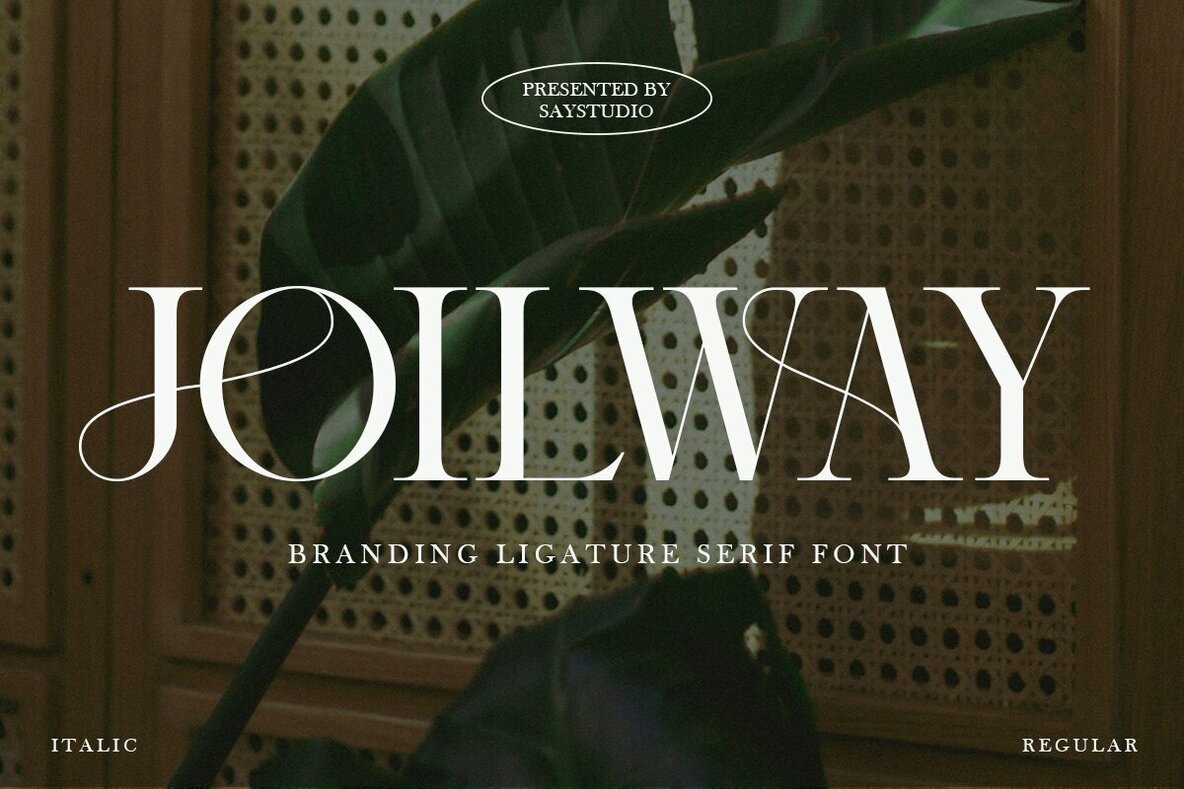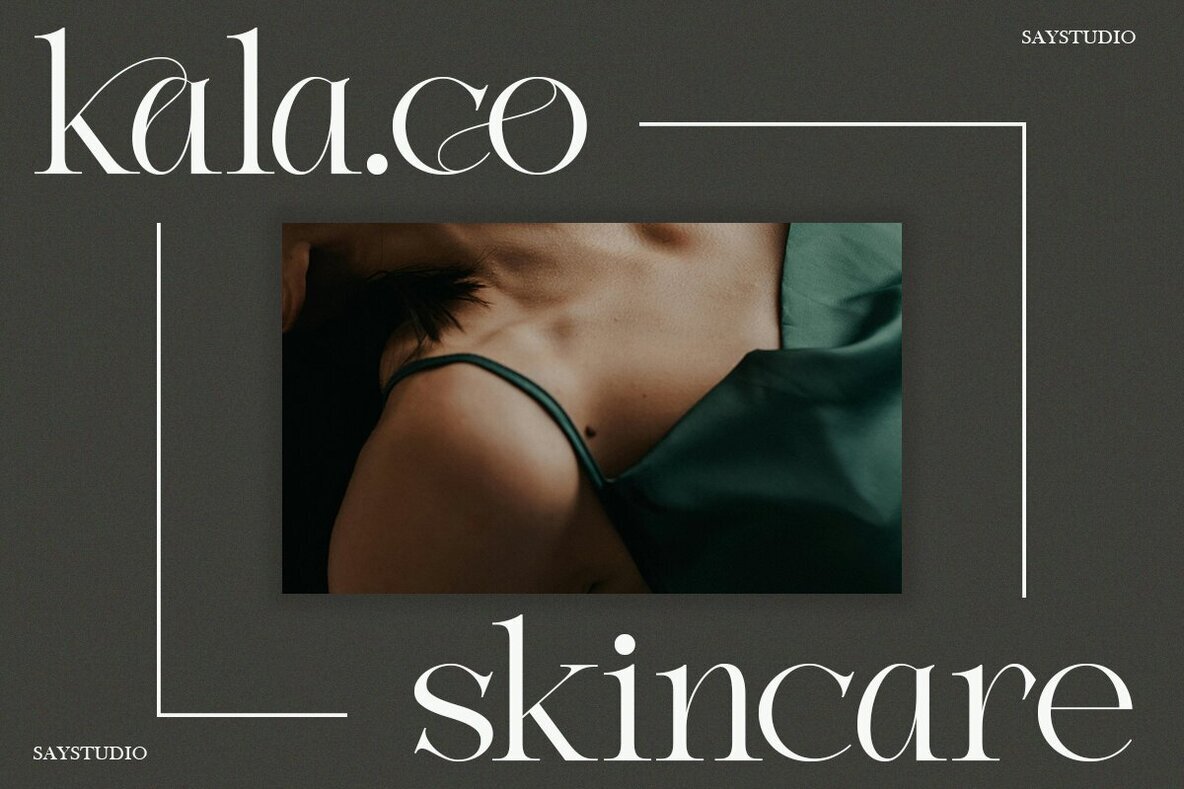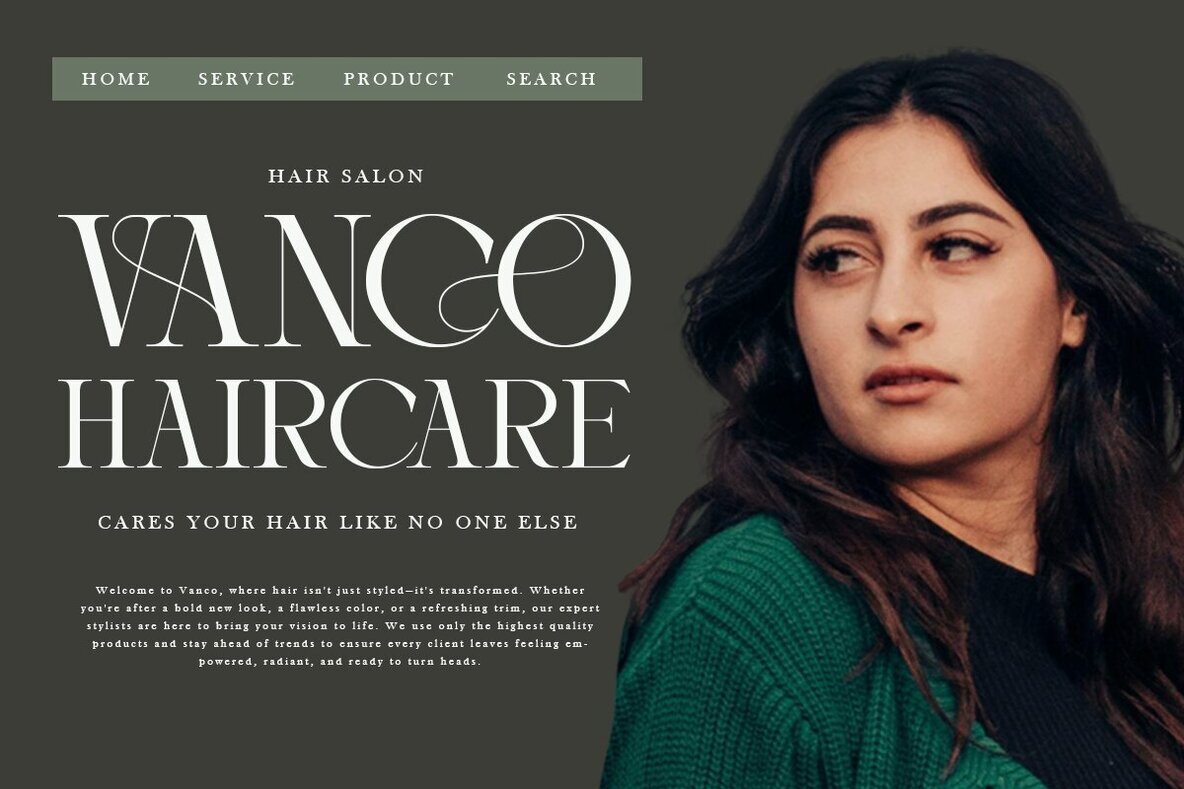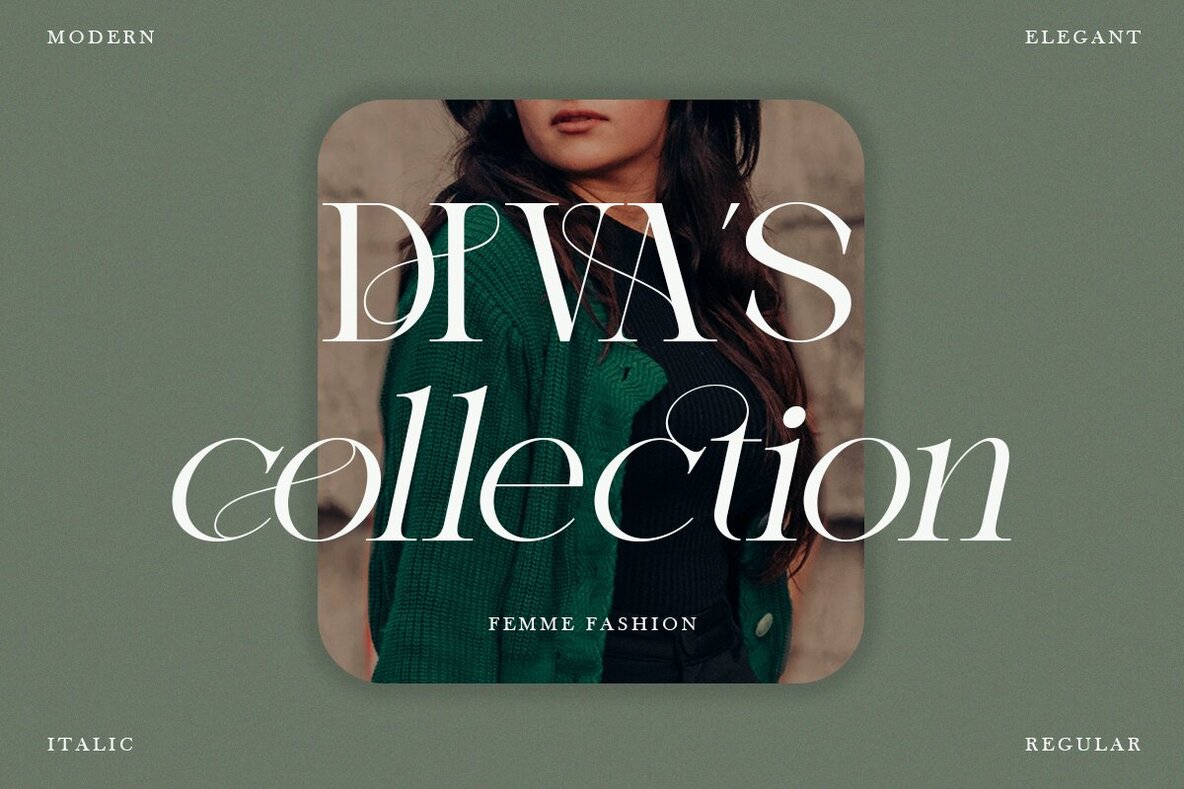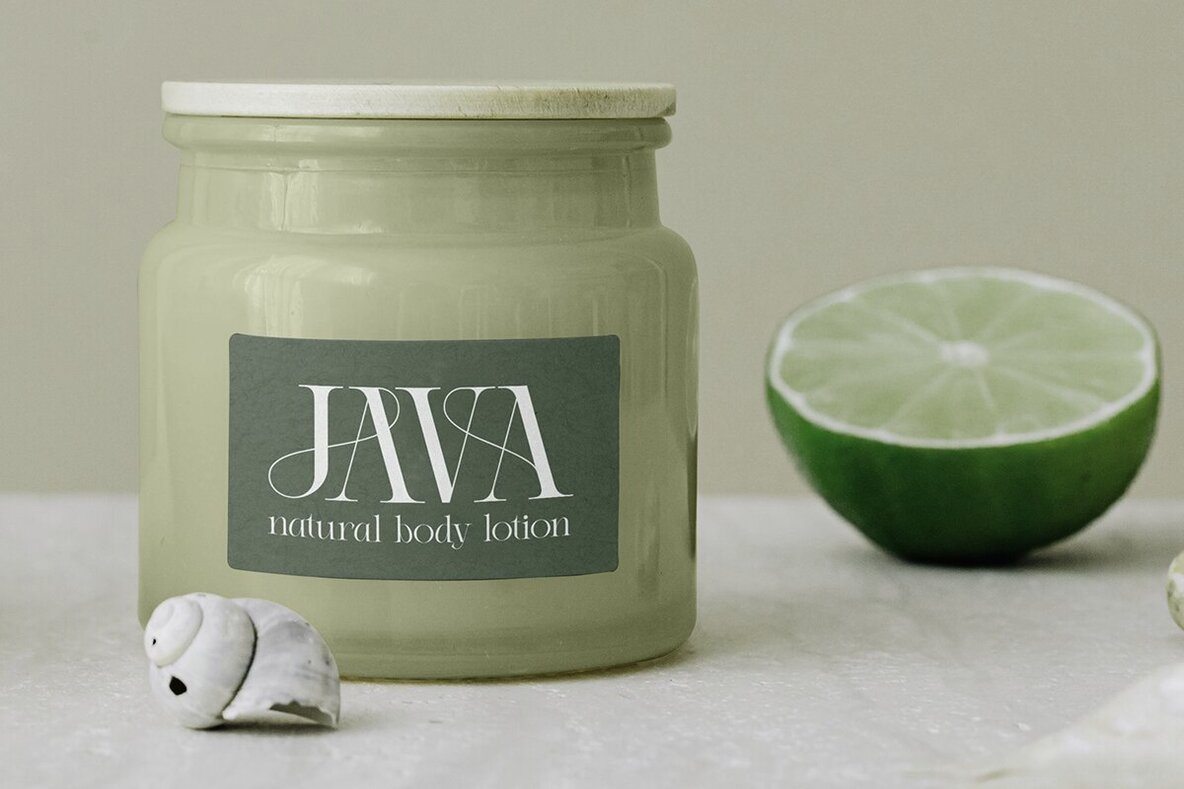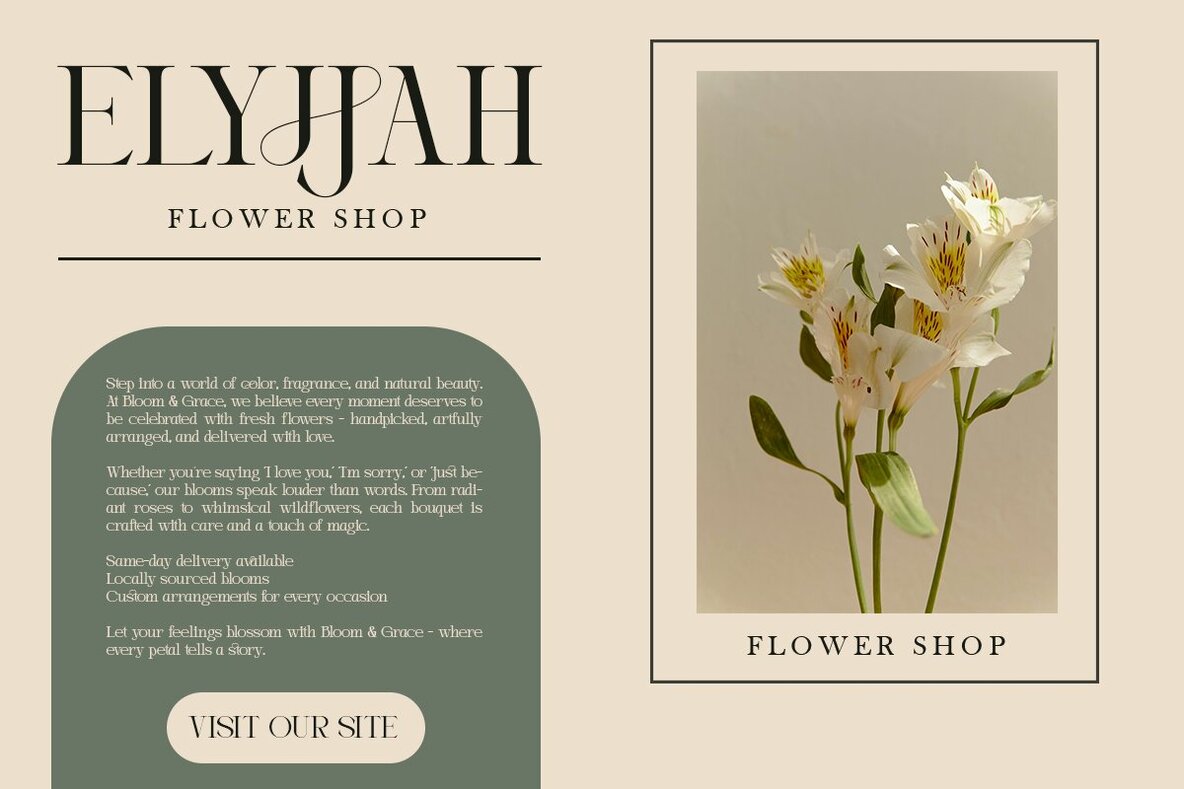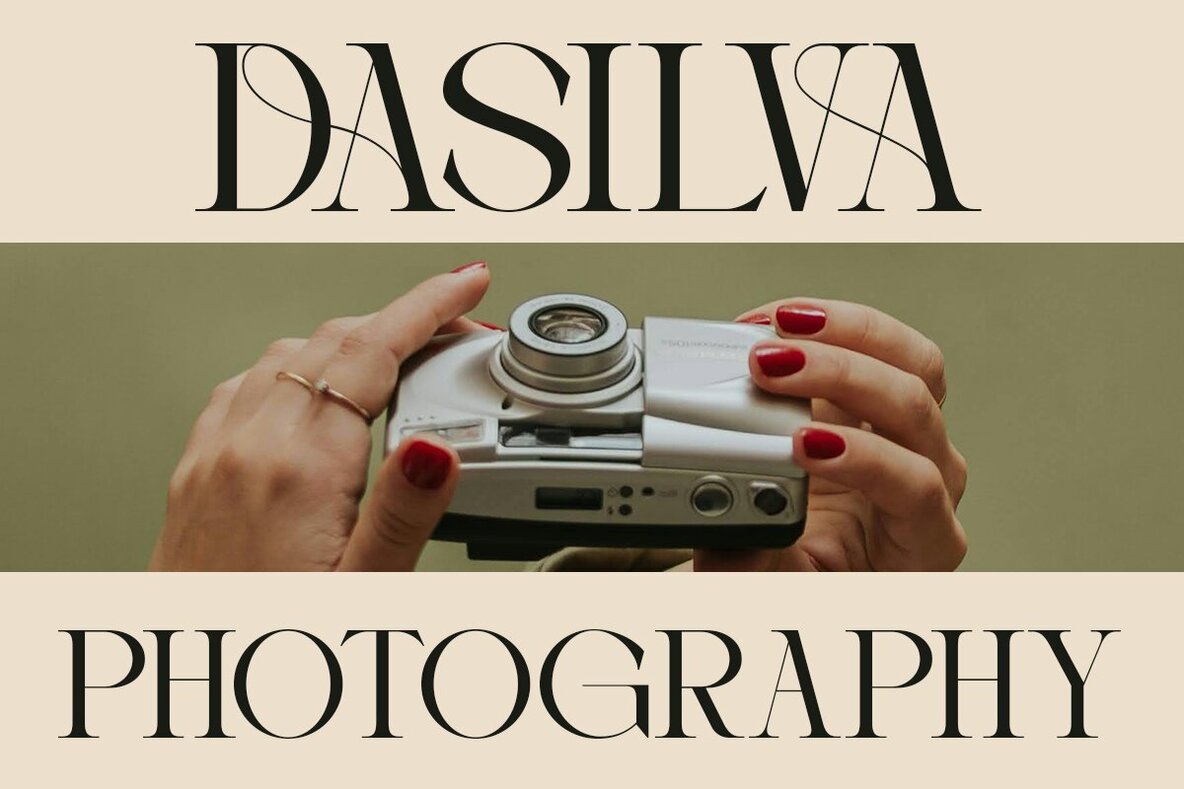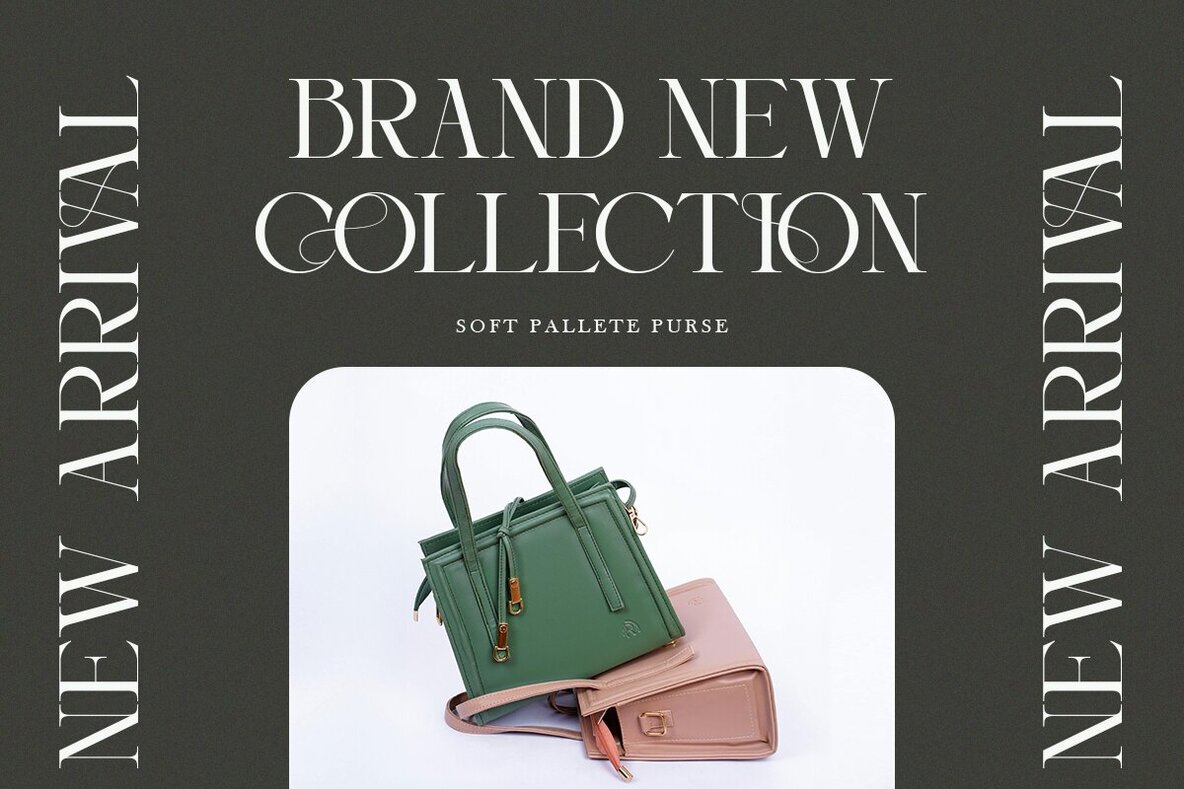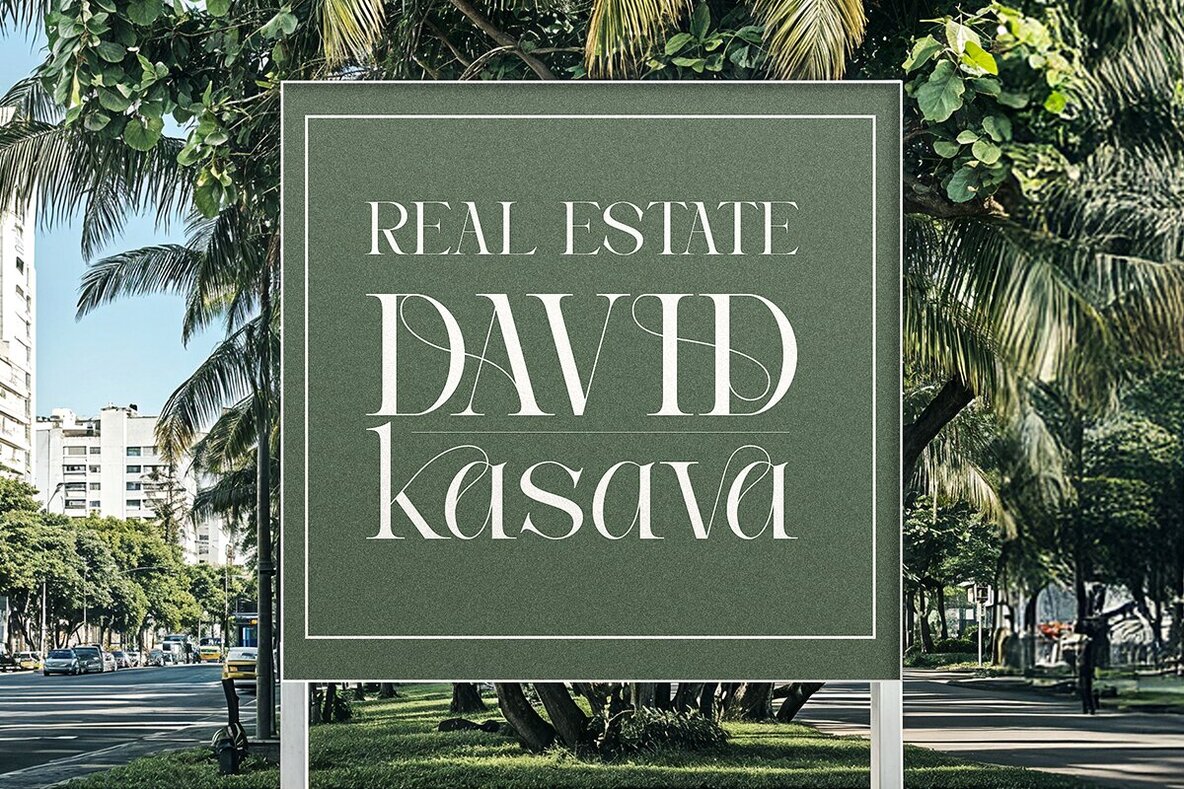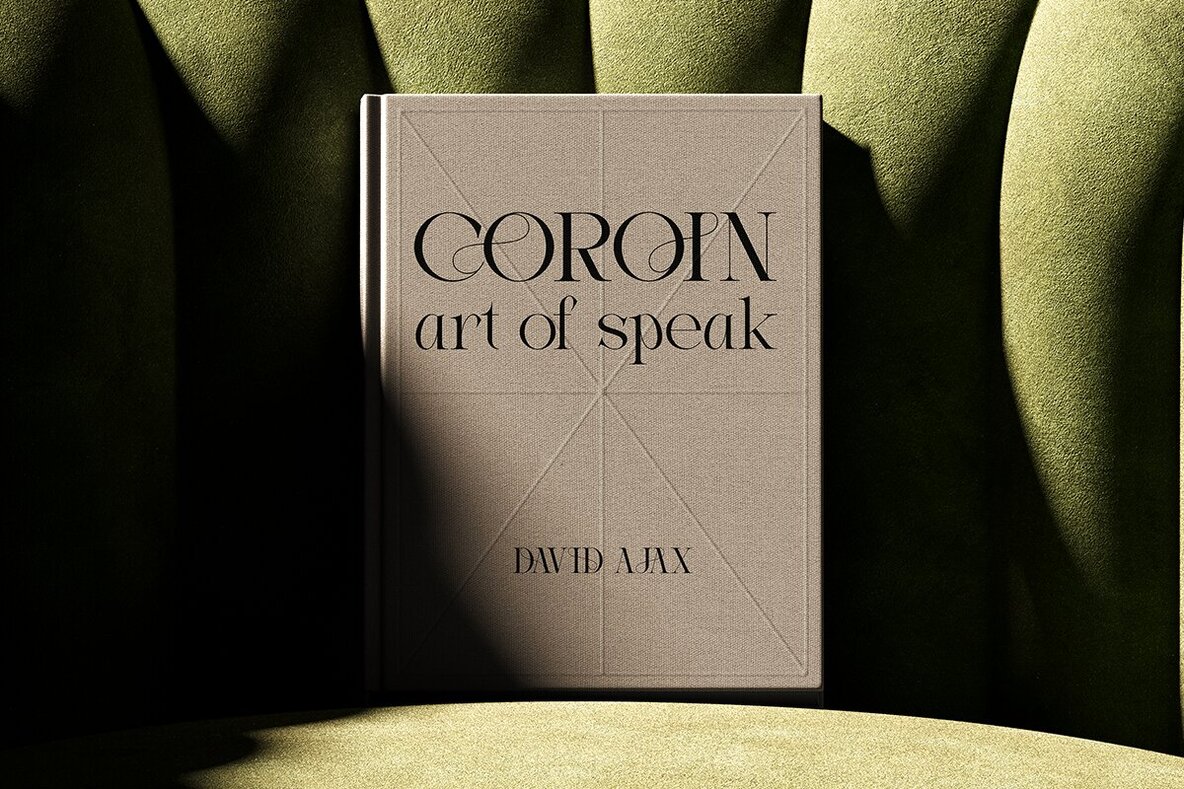
Joilway Font
Elevate your design portfolio with Joilway, an exceptional serif ligature font available in both regular and italic styles. Ideal for luxury branding, editorial designs, and invitations, Joilway features a refined character set that seamlessly complements high-end typography projects. Let Joilway impart a premium, professional appearance to any design endeavor. Features:Joilway: Elegant Serif Ligatures for Luxury Projects